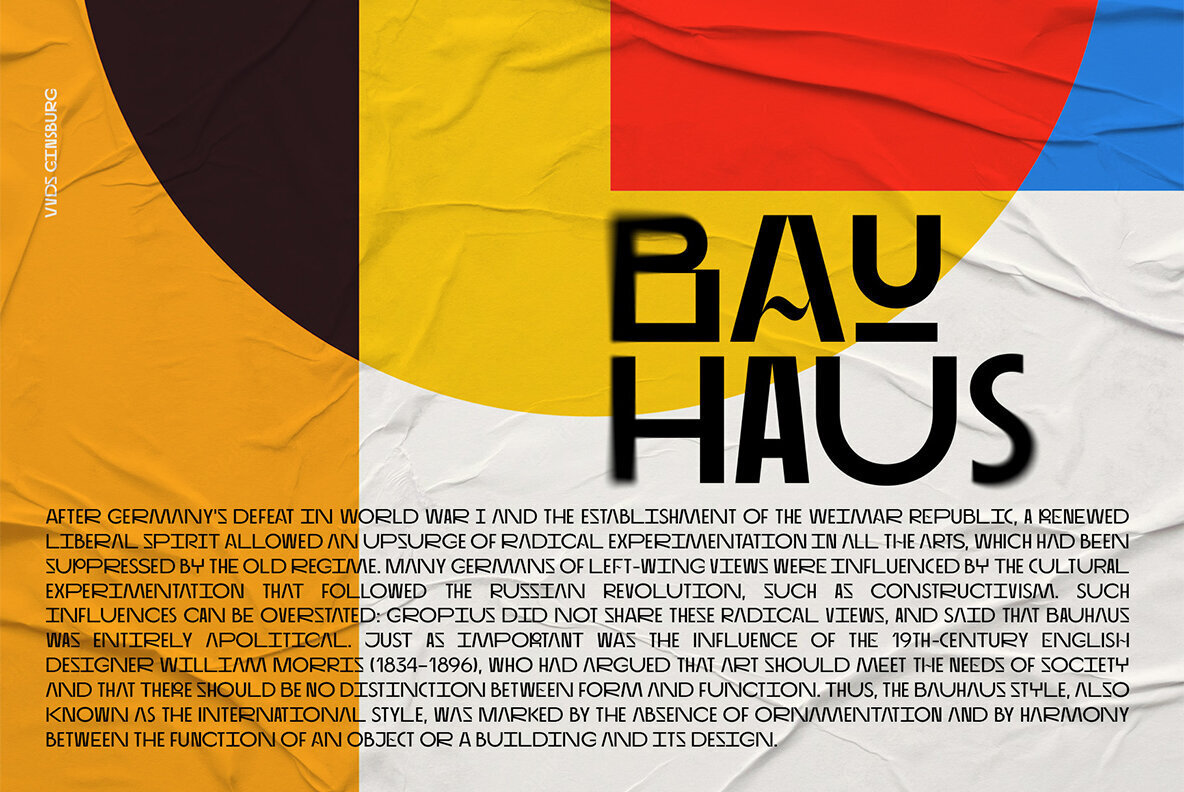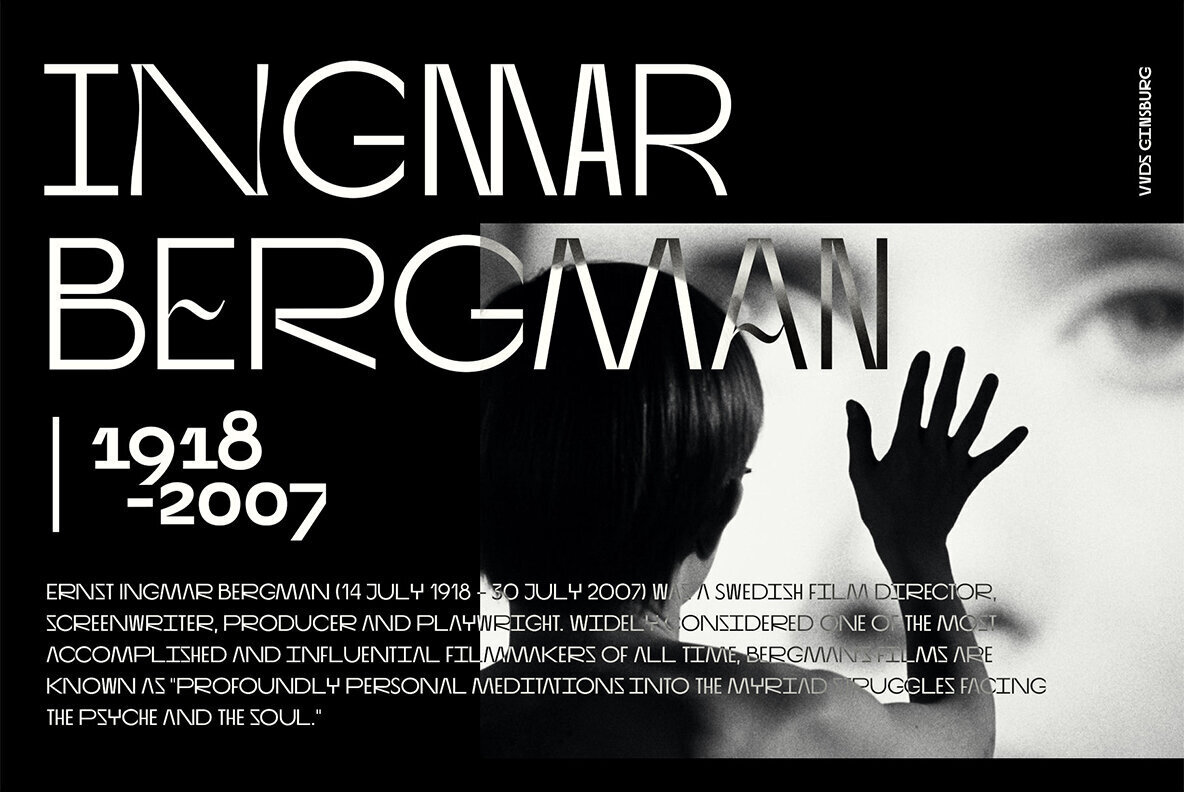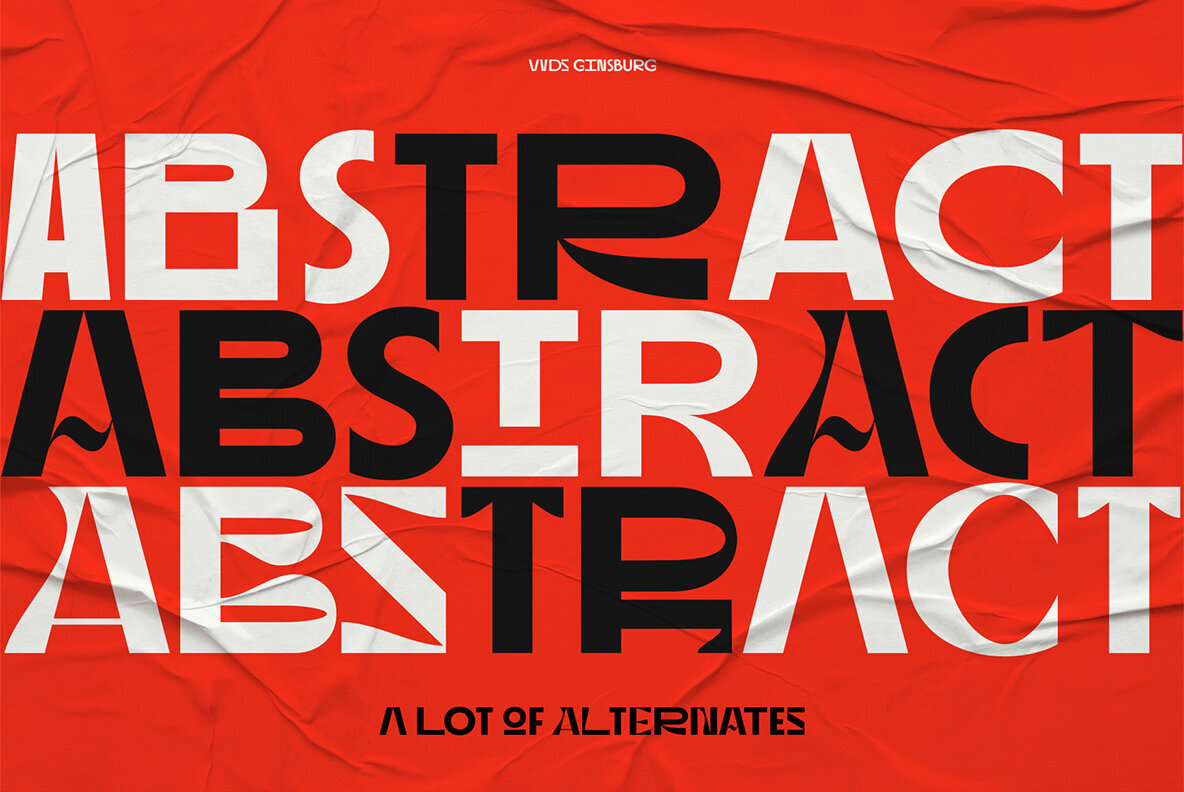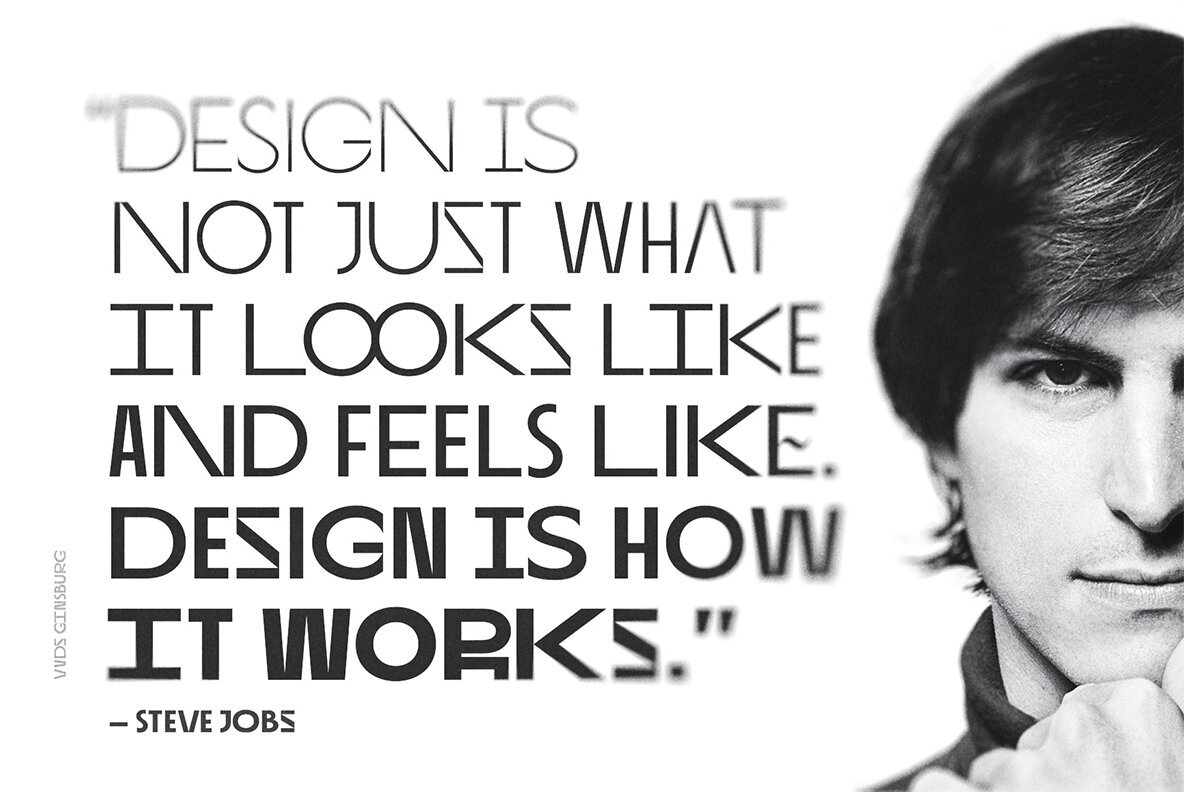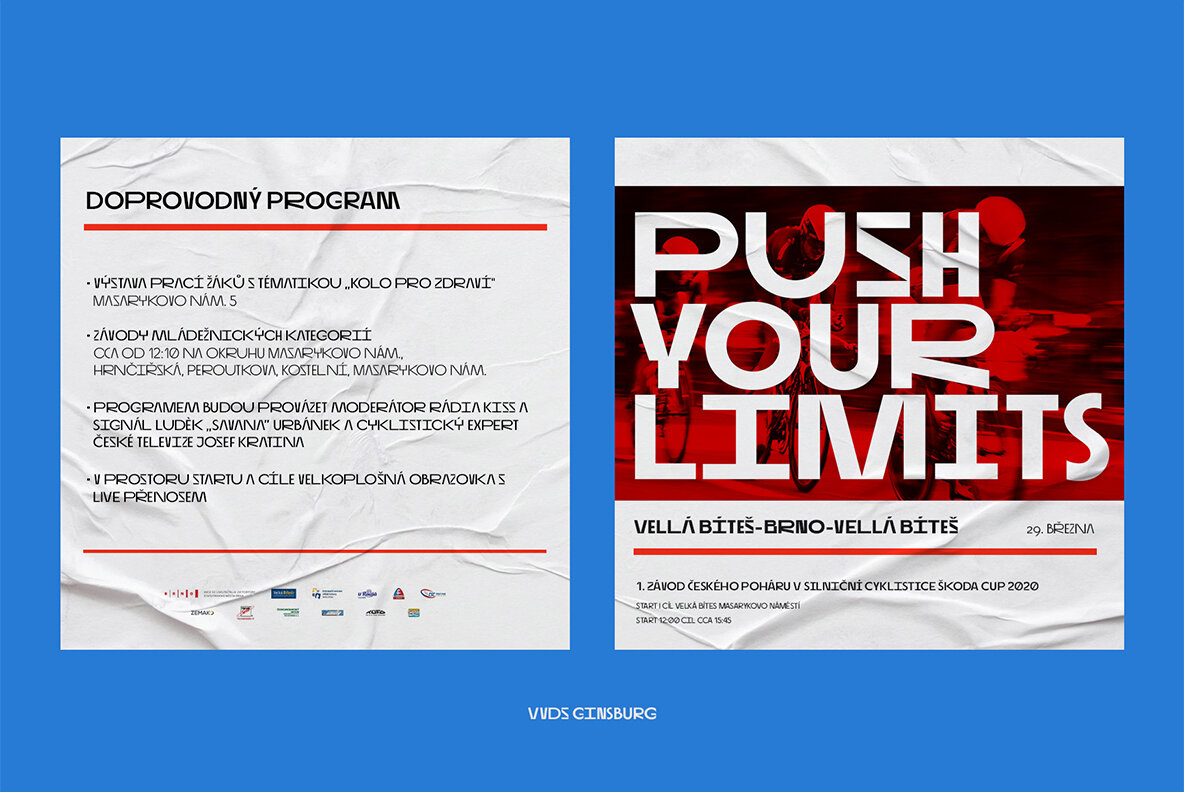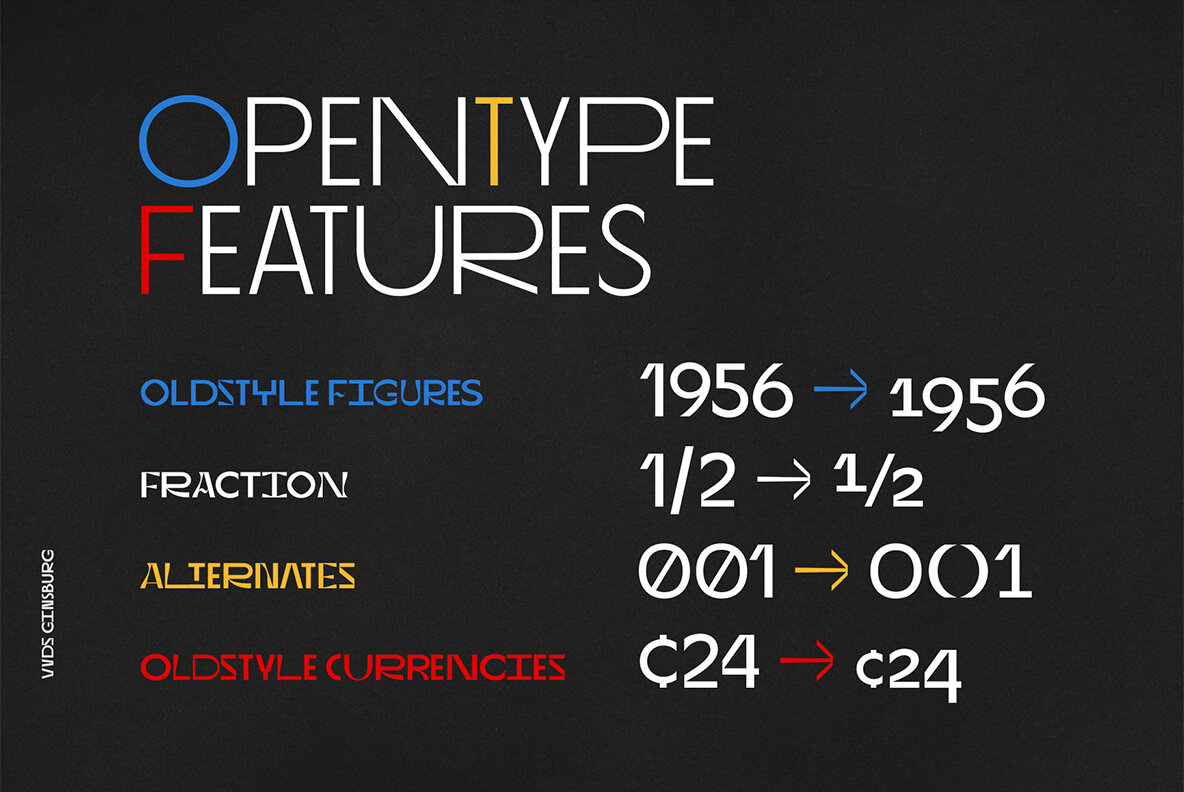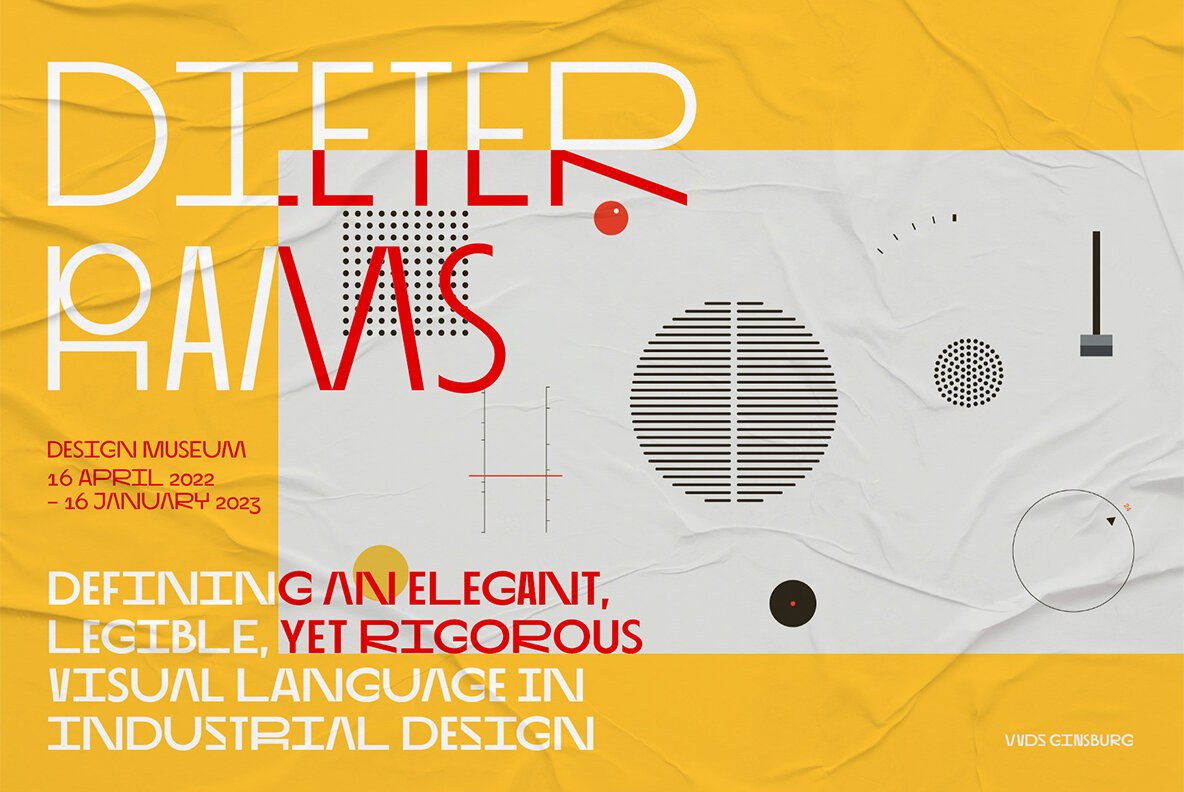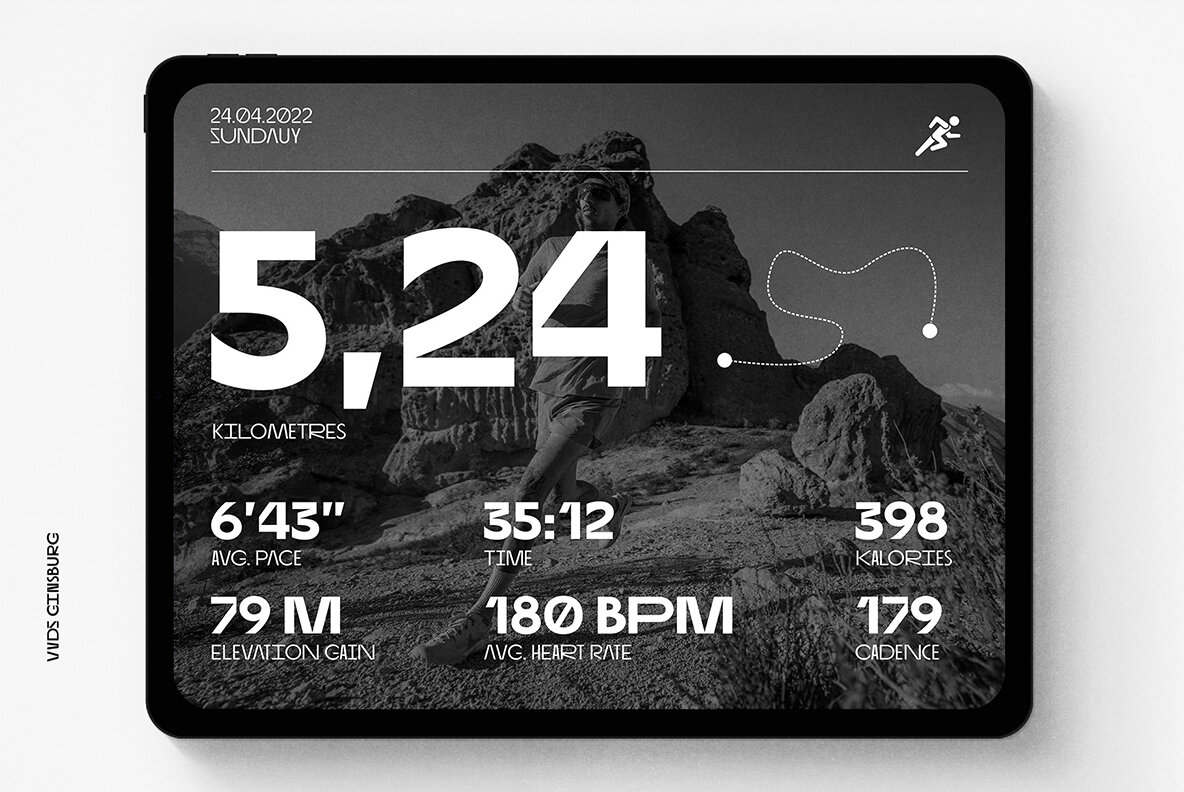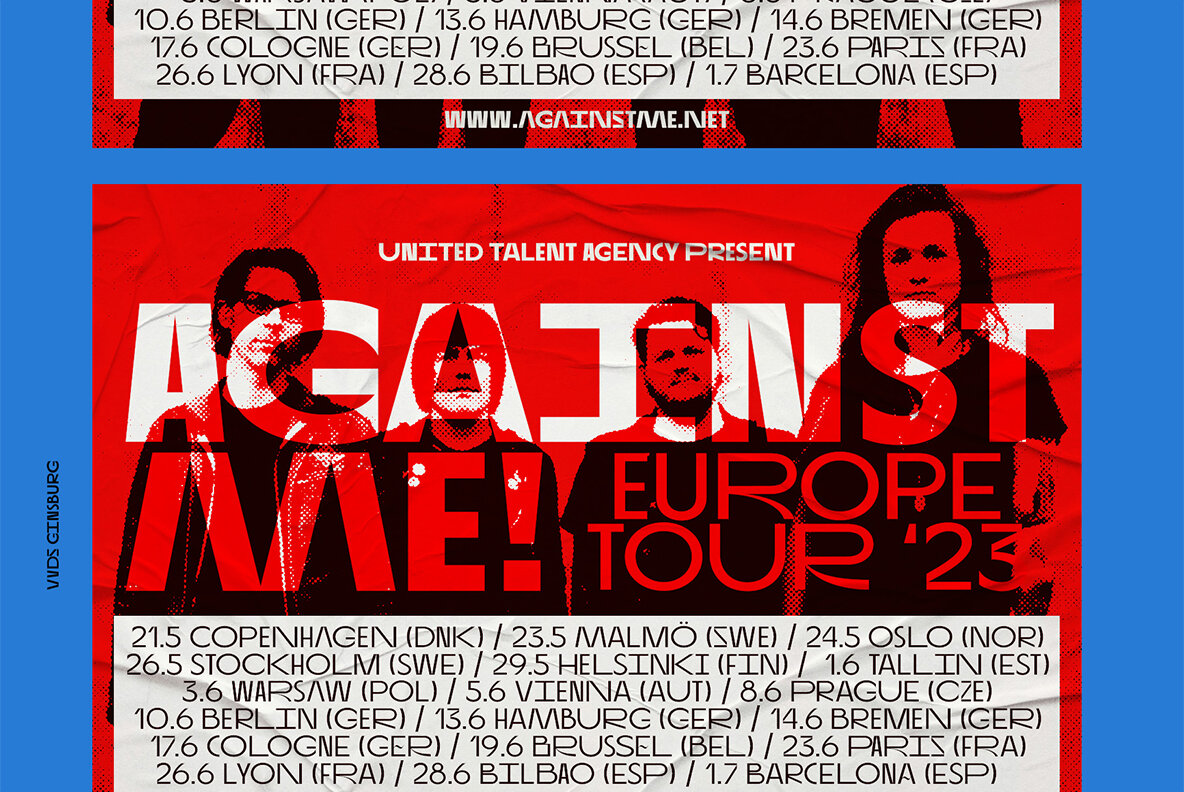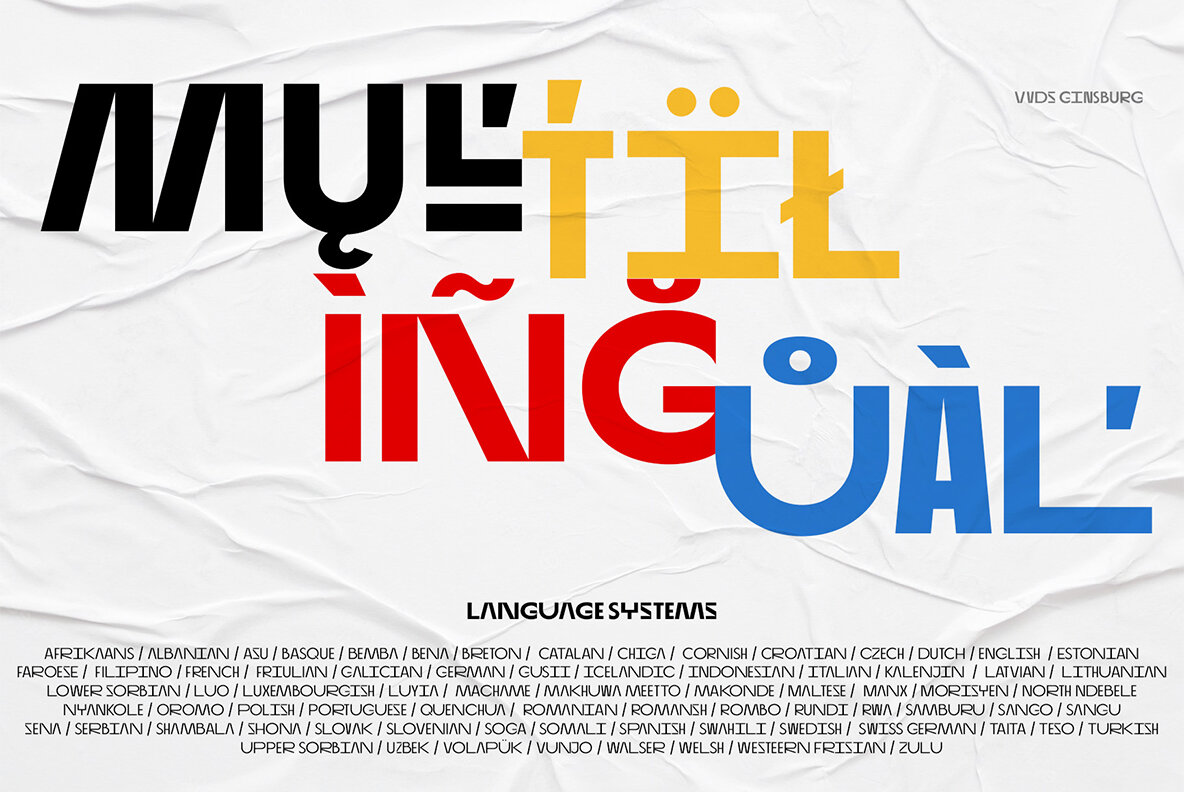
VVDS Ginsburg Font
Ginsburg it's a modern display all-caps font-family based on geometric forms and abstract wavy lines with an old school constructivism look. Inspired by Moses Ginsburg architecture projects. Playful, modern, suitable for many typography projects as headers, logos, block texts, etc. You may be more strict in your typography or you may be more groovy or playful with alternates characters. Use this family in vintage spirit for TV series, Podcasts titles, exhibition posters or design a modern extreme sport brochure, . Flexible, Catchy and Brazen — it's all about Ginsburg!
- Six widths: Thin / Light / Normal / Medium / Semi Bold / Bold.
- Opentype Features as Stylistic alternates, Oldstyle figures / Fractions.
- Multilingual